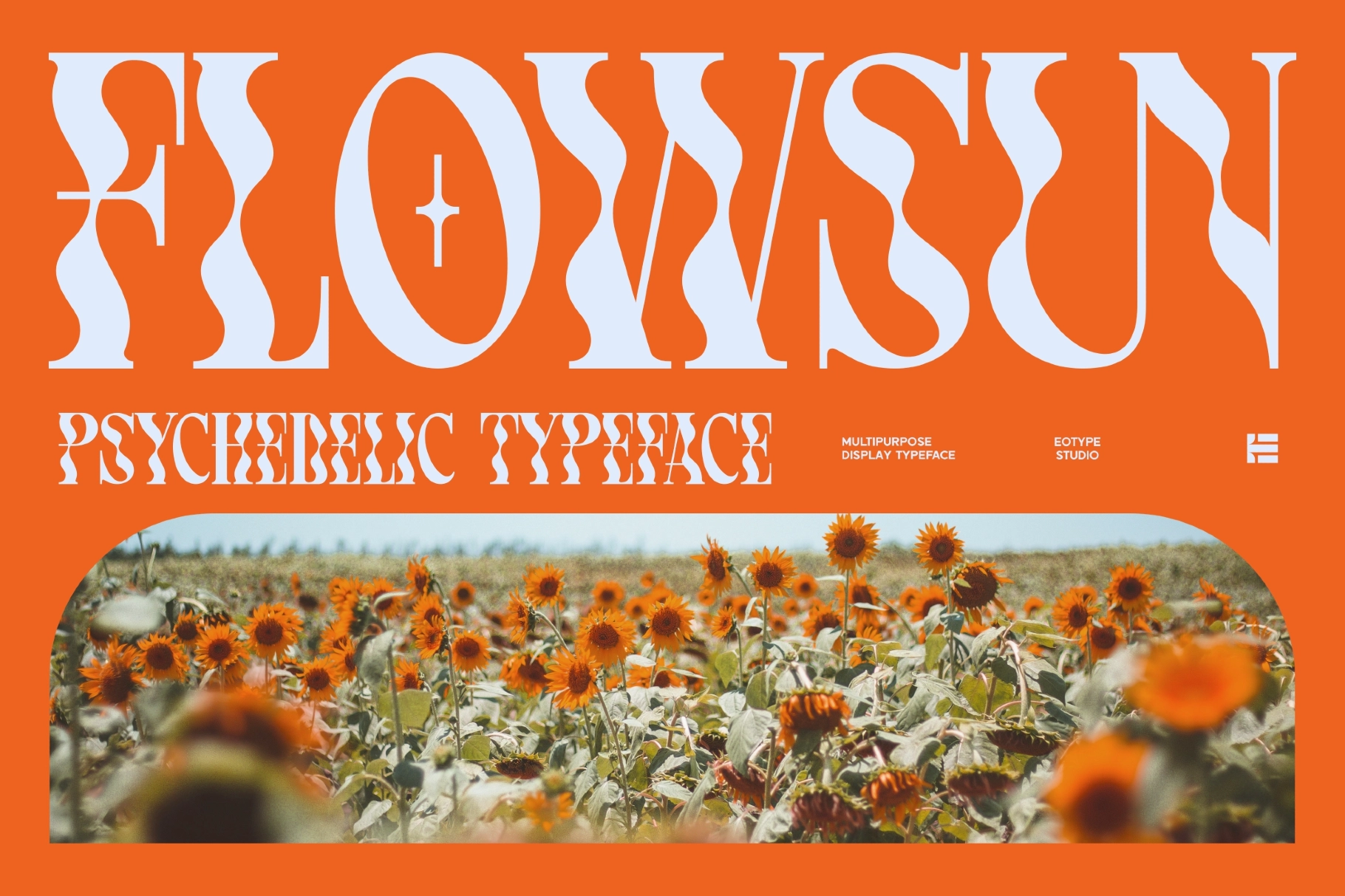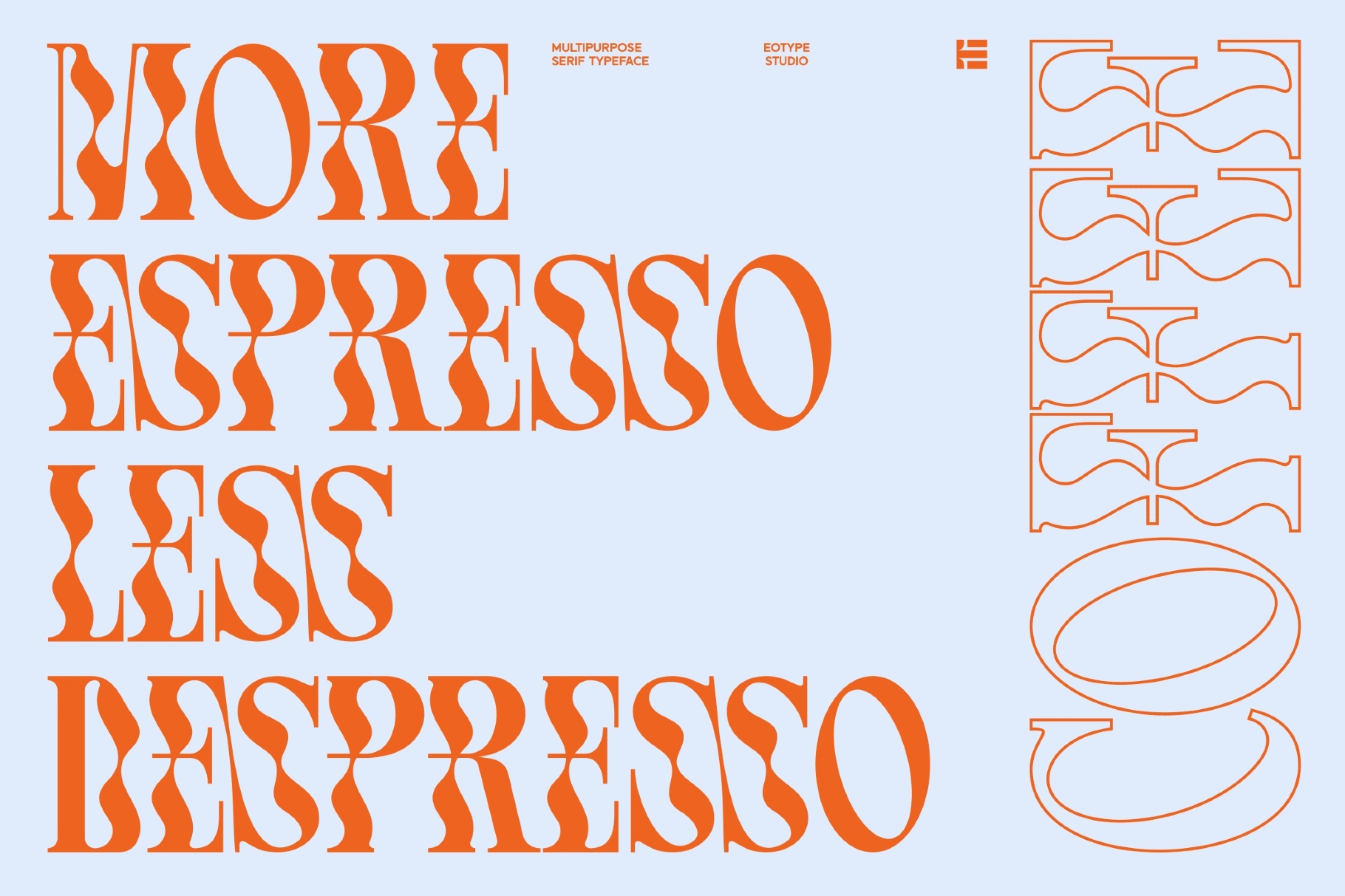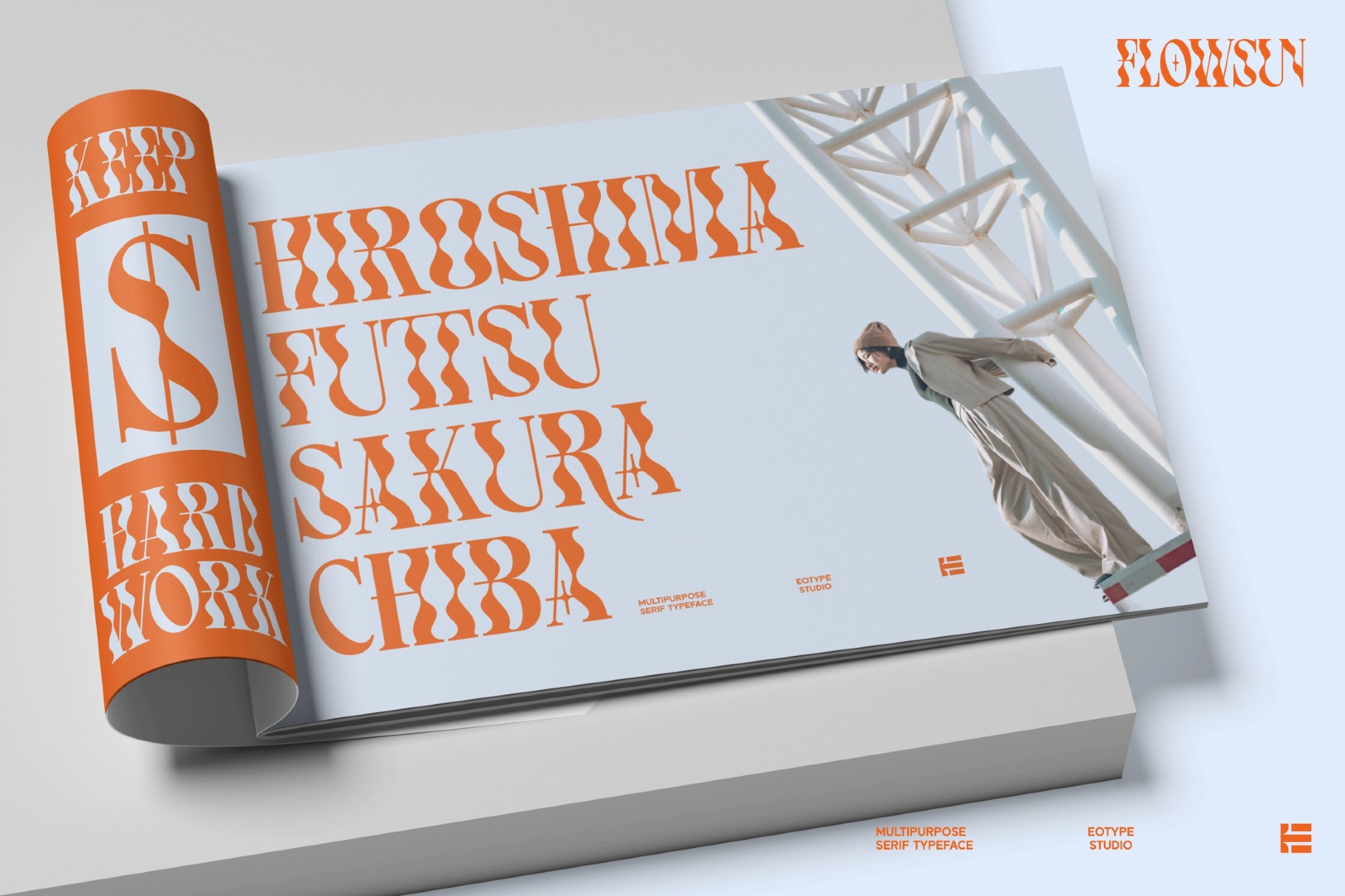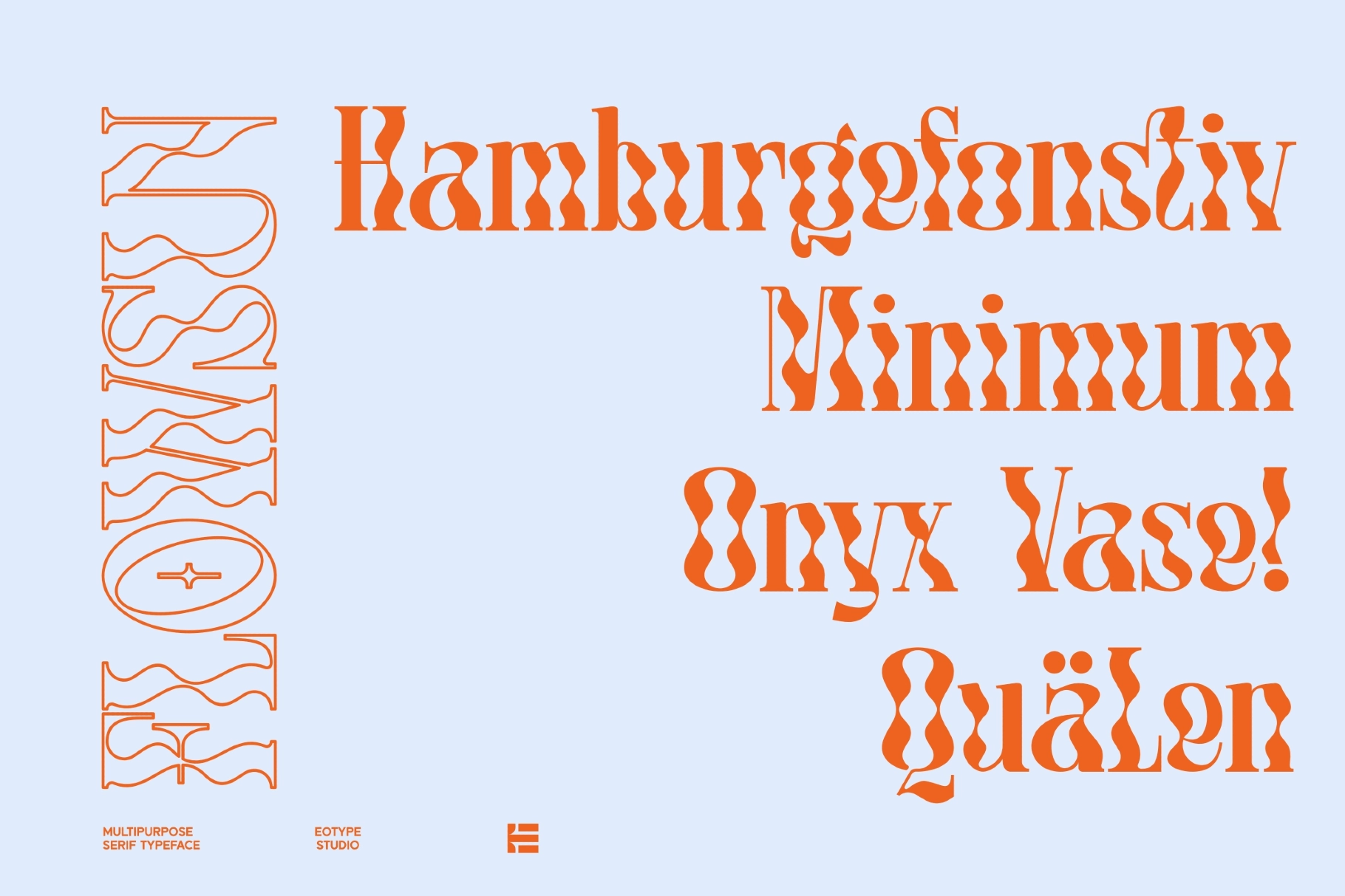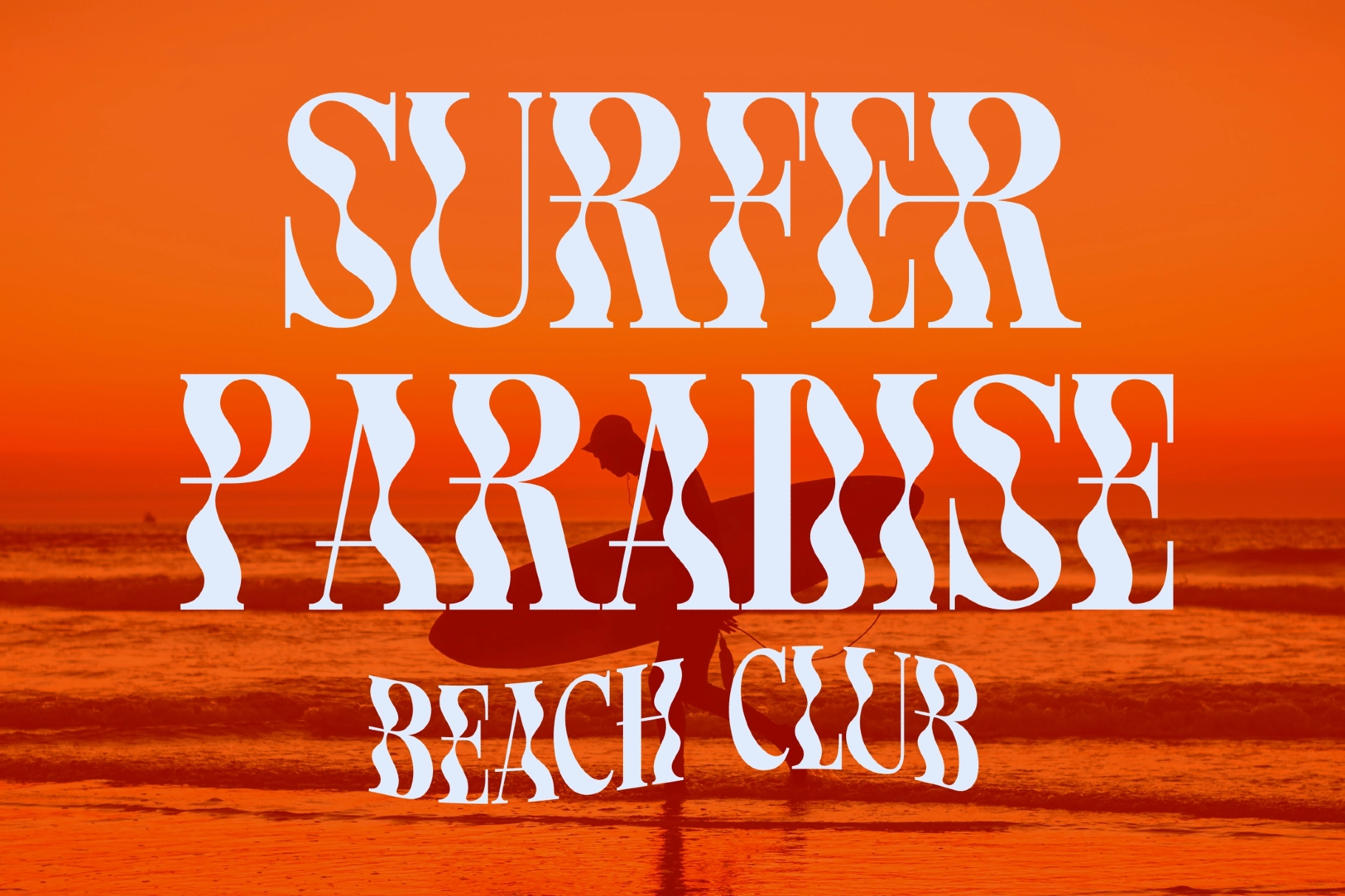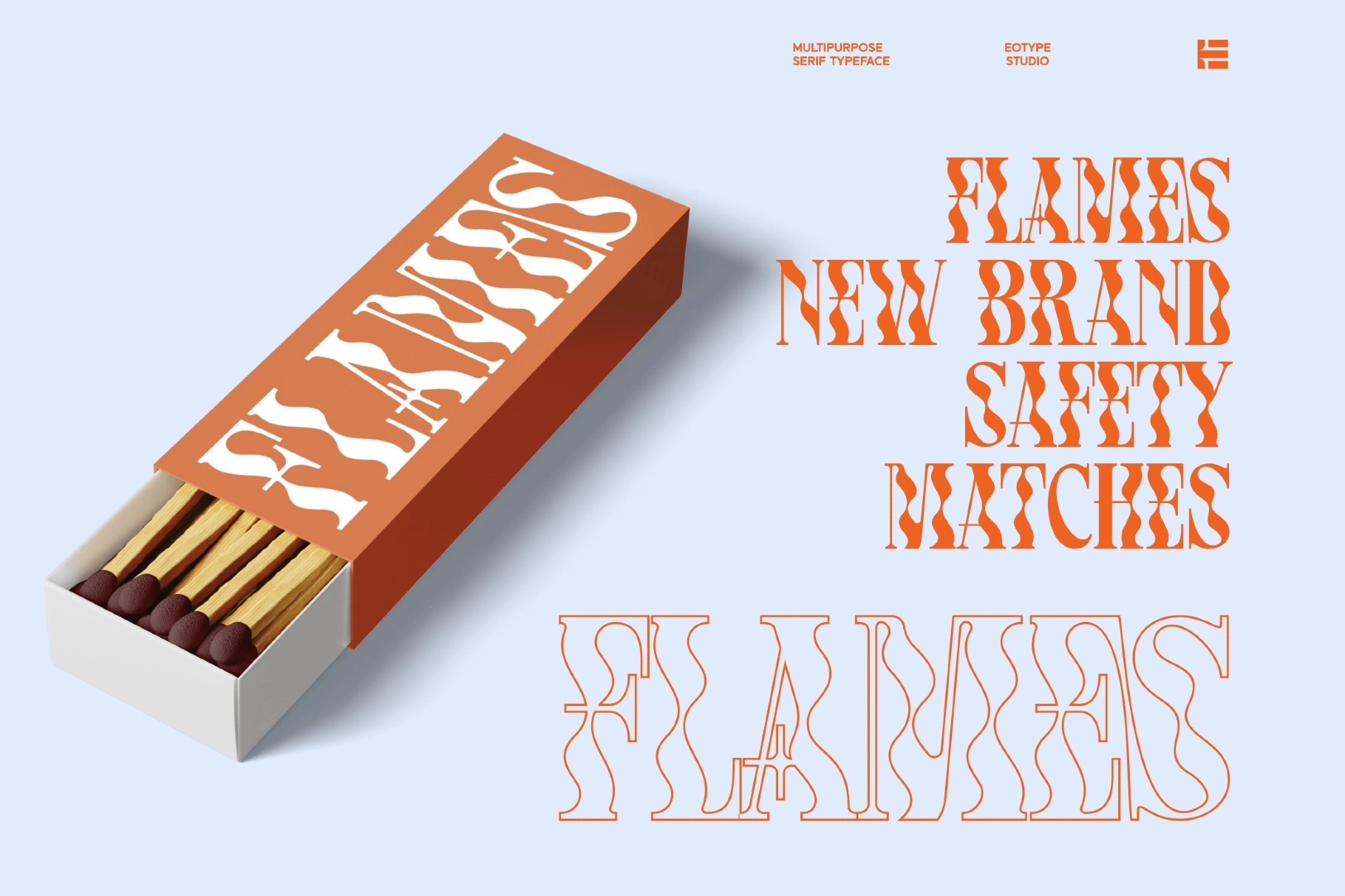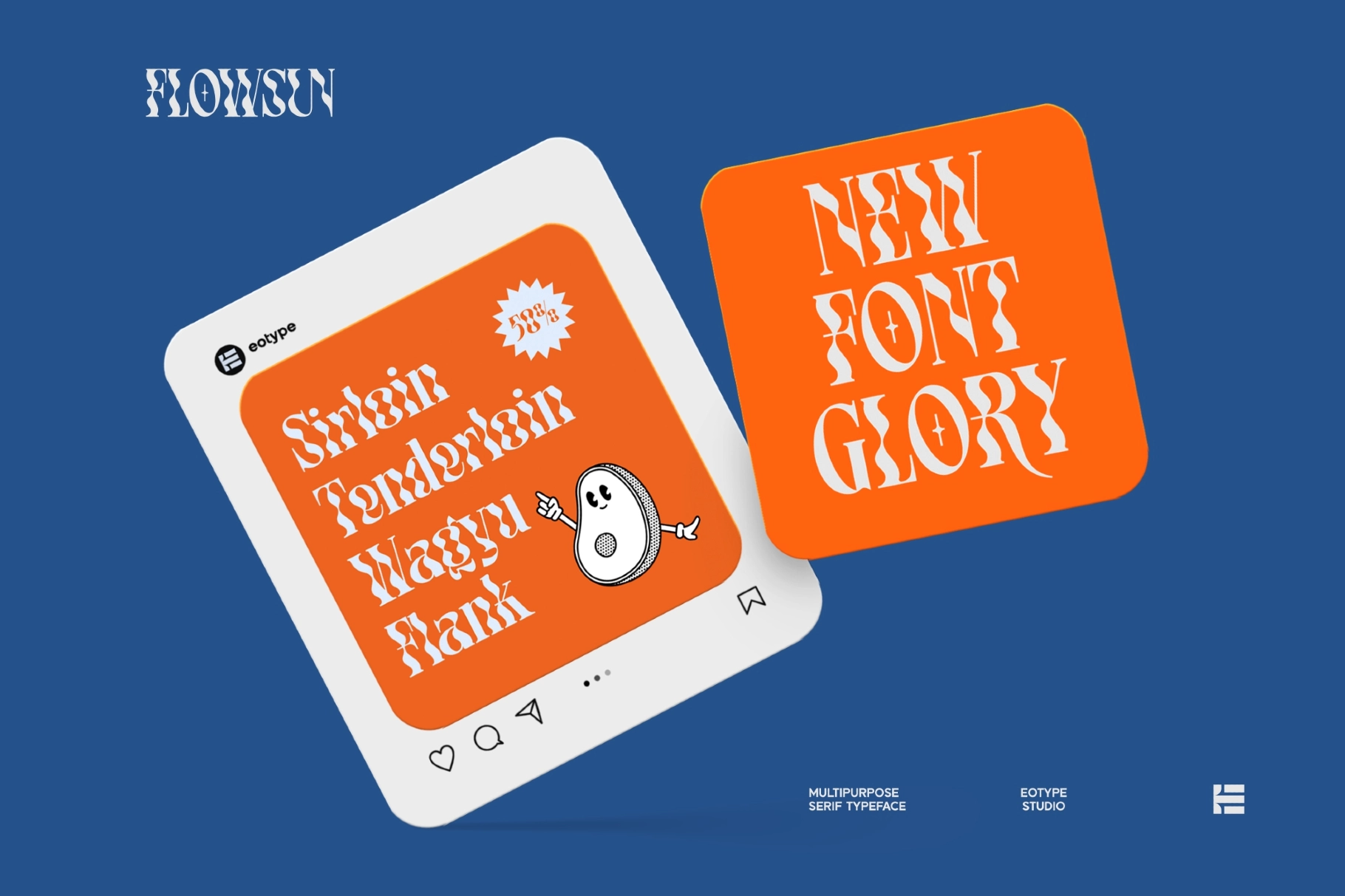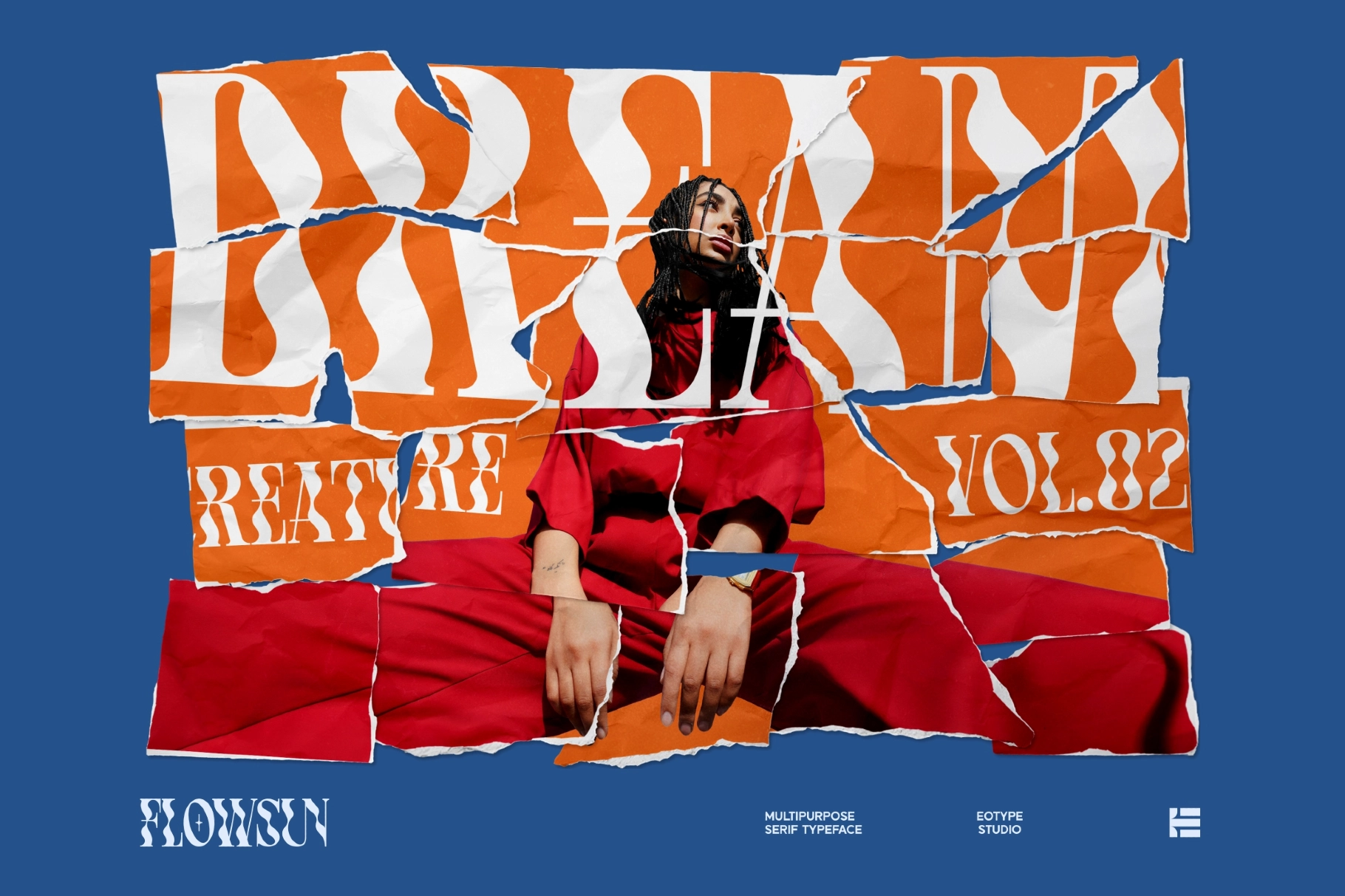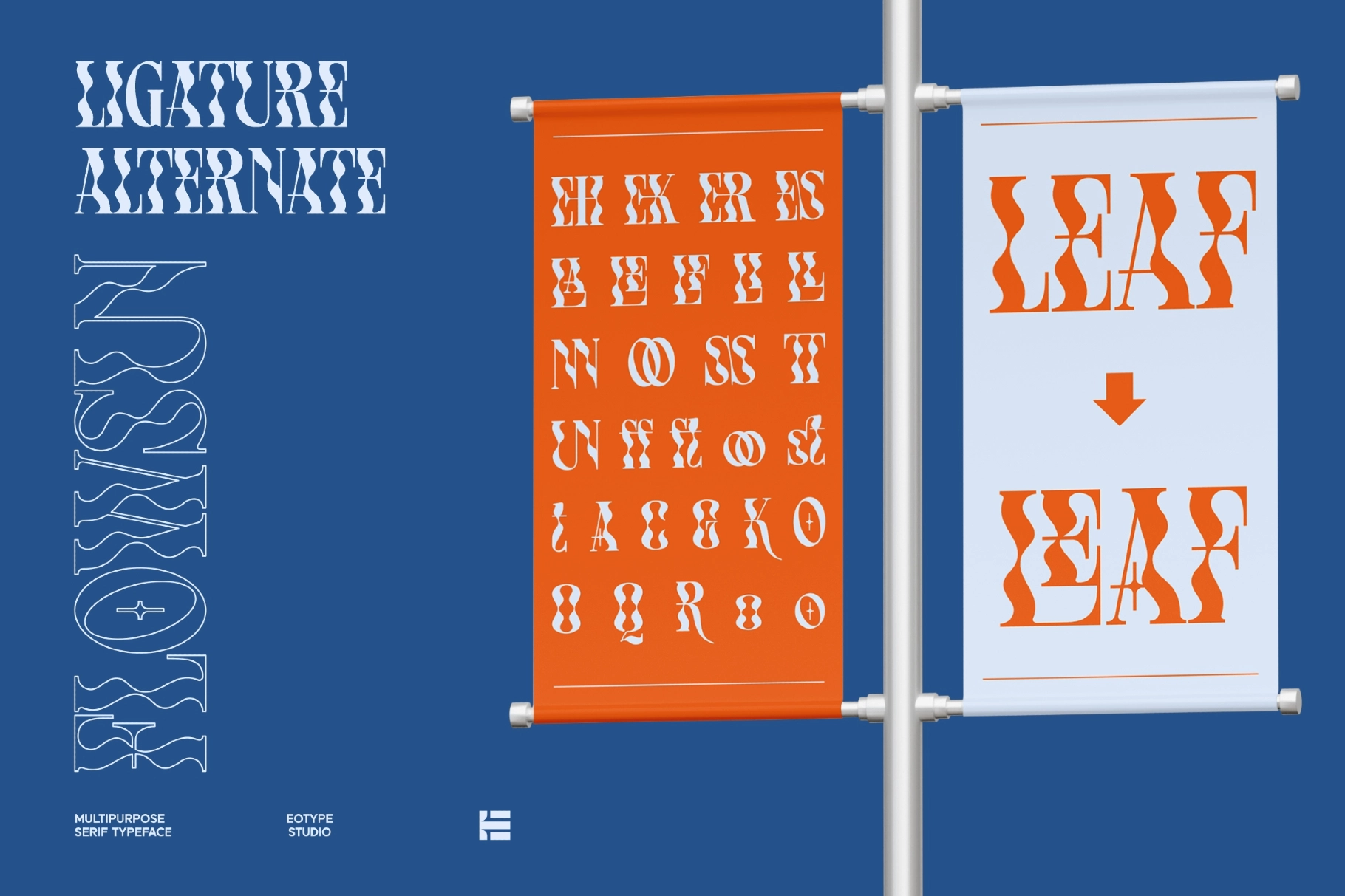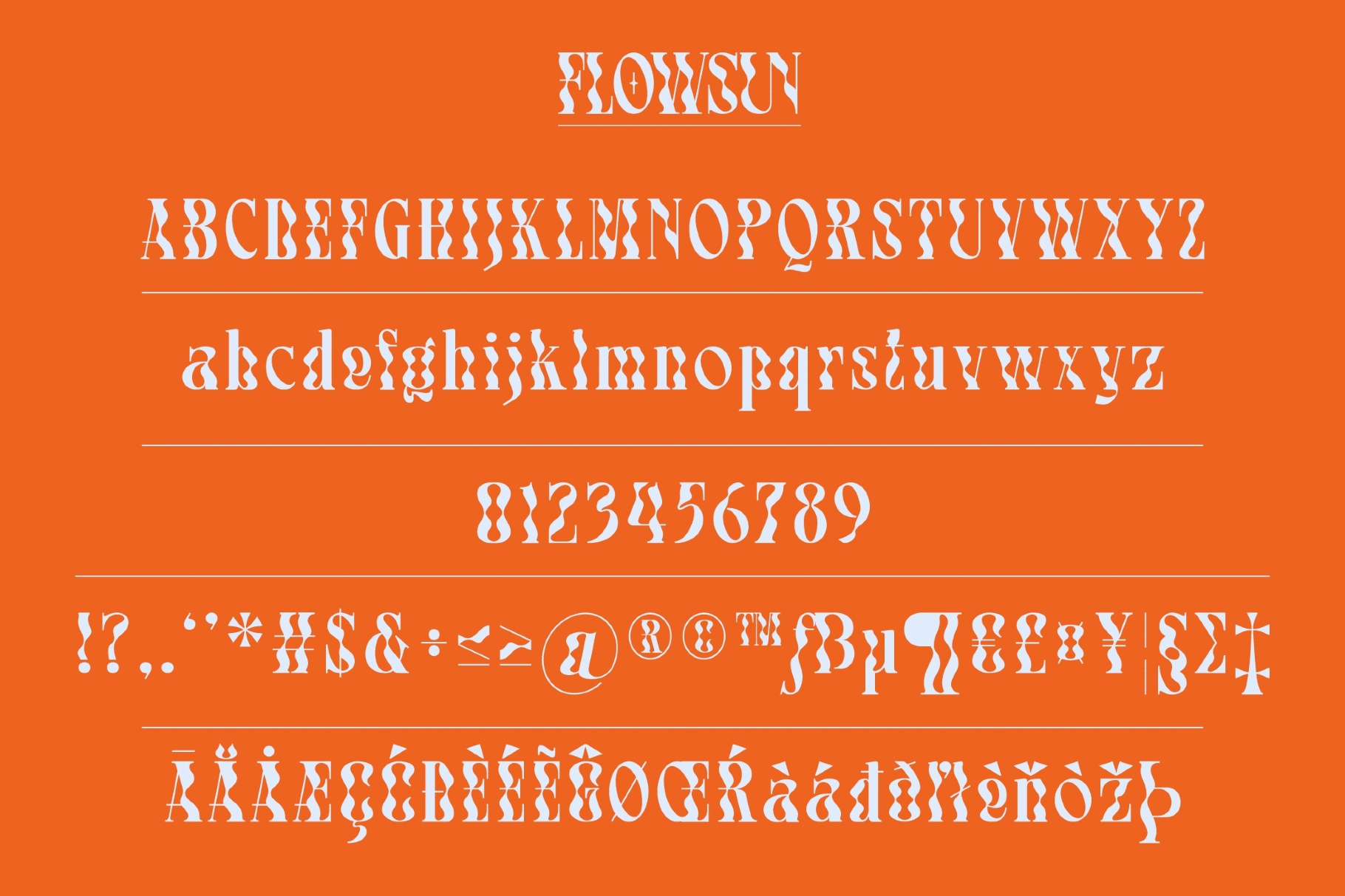
Flowsun - Psychedelic Groovy Serif Font
Flowsun bends its stems like a heat-warped concert poster from the late 60s — thick strokes swell at the middle of each letter, then pinch back into sharp, condensed serifs at top and bottom. This groovy serif font holds that push-and-pull rhythm across the whole set, and a set of stylistic alternates and discretionary ligatures lets single words wobble into something closer to hand-set lettering than a fixed typeface.
Flowsun works best set large, where the swelling strokes get room to curve and settle. Use it for gig posters, surf and beach club branding, record covers and album art, café and restaurant signage, festival lineups, retro logotypes, magazine headlines, and packaging for lifestyle brands.
• uppercase & lowercase;
• numerals, punctuation & symbols;
• stylistic alternates & discretionary ligatures, PUA encoded;
• multilingual suppor